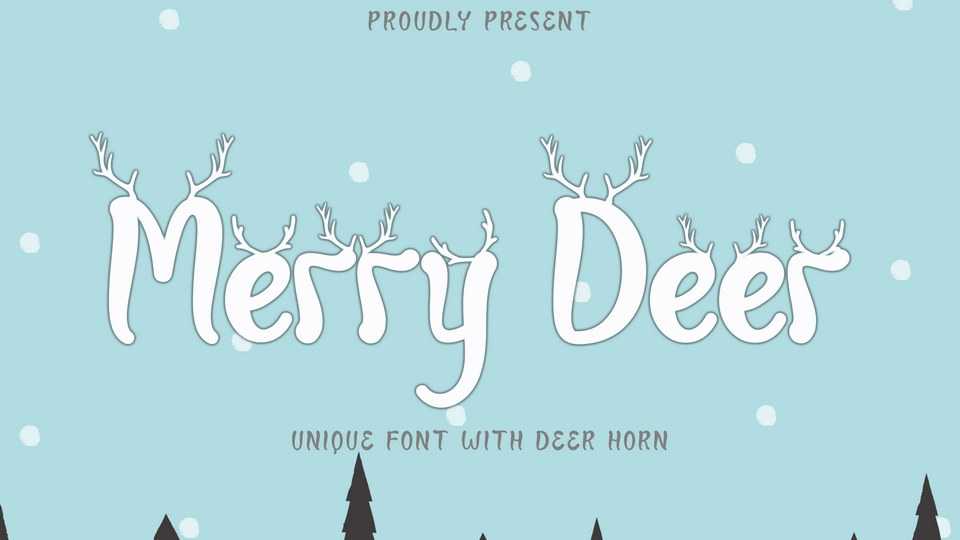
Download Merry Deer font, a unique handmade typeface with a deer horn embellishment. This will add a unique and funny Christmas feel to any writing or work you make.